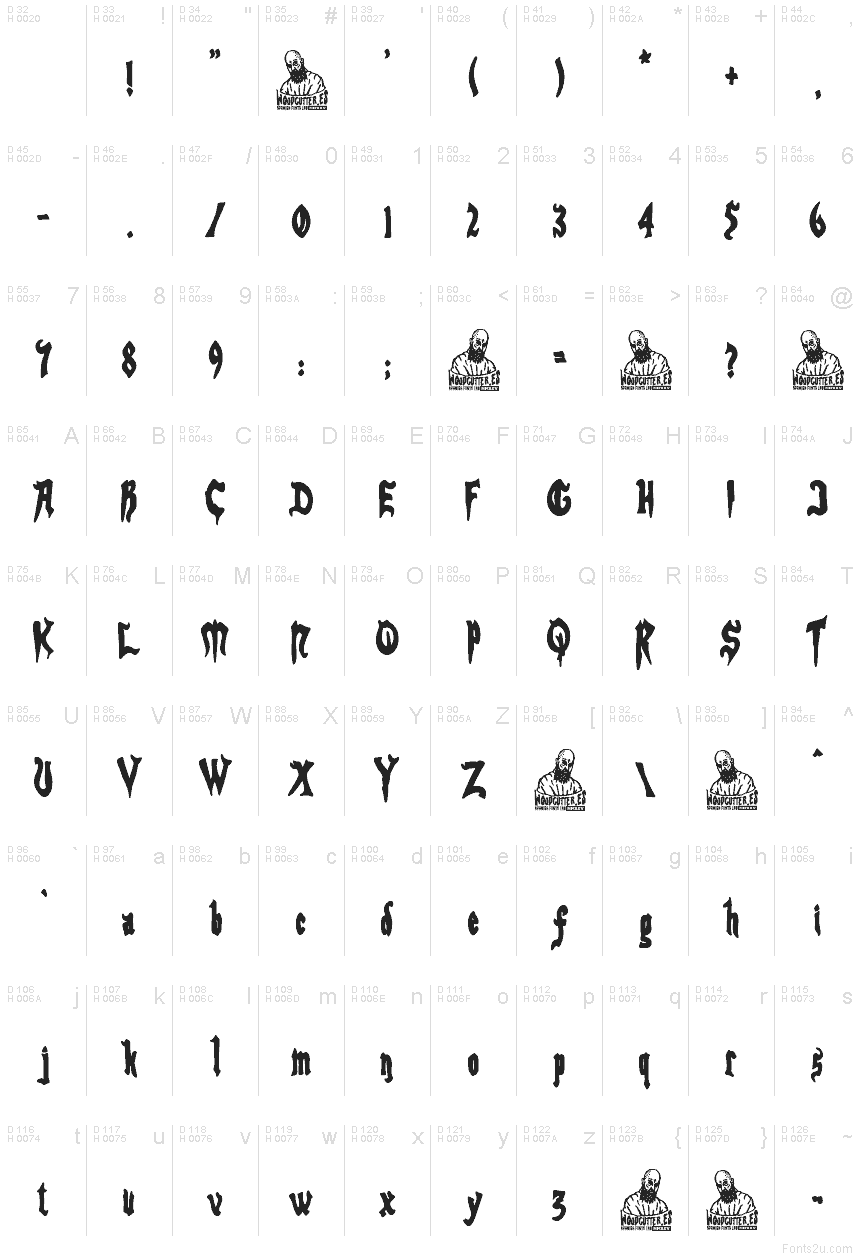
Octubre Medieval
Octubre Medieval font by Woodcutter is a free medieval gothic display font. Heavy, ink-blotted strokes and dagger-like spines give it a smoky, torchlit presence, while the uneven edges feel carved rather than drawn. It reads with a bold, rhythmic thud—ornate enough to command attention, restrained enough to stay legible at headline sizes.
Using Octubre Medieval, you can brand Halloween posters, dark fantasy book covers, game titles, brewery labels, festival banners, escape-room graphics, or metal album art with immediate mood. This free font shines on large, high-contrast layouts; keep tracking tight for cohesion. Pair with a plain, modern sans for body copy to let the blackletter drama breathe.